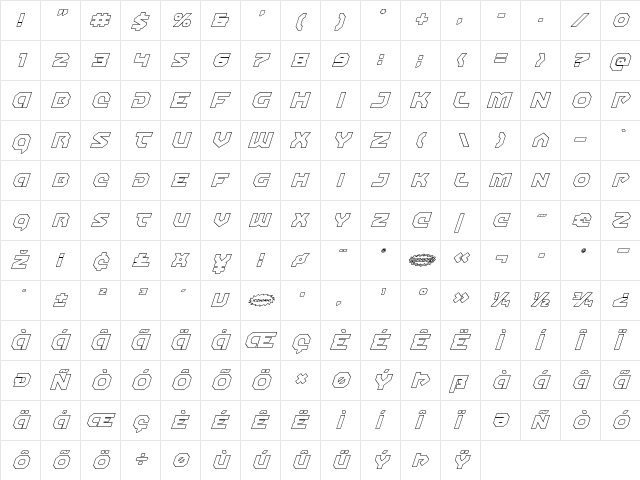
Gunner Storm Outline Italic Italic
Design Context for Gunner Storm Outline Italic Typeface
Gunner Storm Outline Italic brings ornamental detail and strong personality to headlines and identities, where visual impact matters more than quiet functionality. Its italic angle brings a sense of urgency and motion to the letterforms.